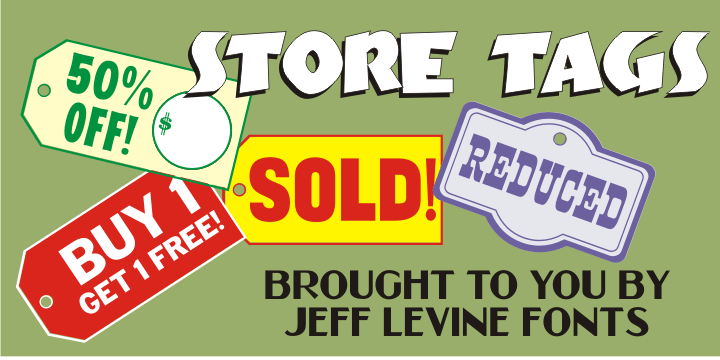
Store Tags
Store Tags JNL is a collection of vintage-style store price tags that are great for a multitude of purposes. Print them with a color fill and overlay them on product photos in ad fliers… Enlarge them and print them out on card stock to create pre-printed tags… or print them out poster-size and use them for point-of-sale displays.
Store Tags includes 56 glyphs.